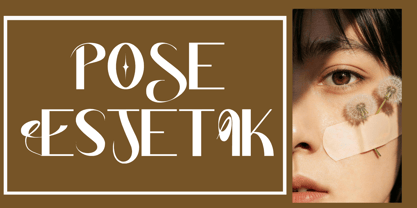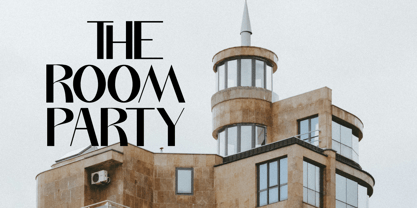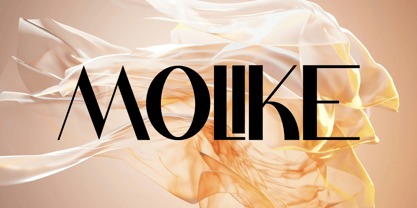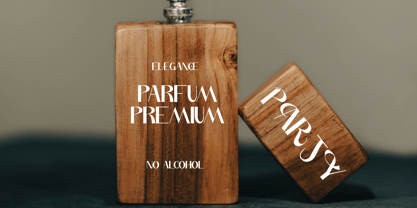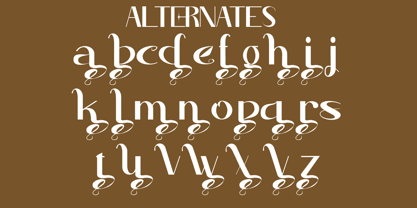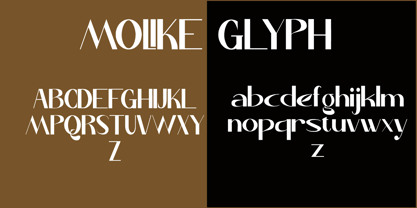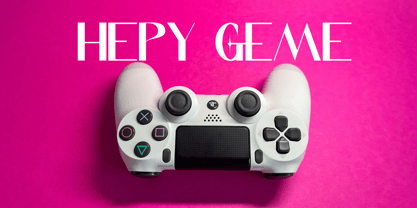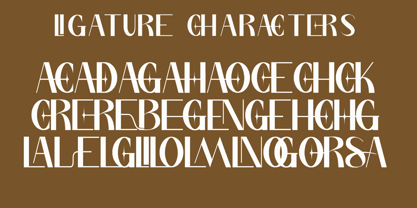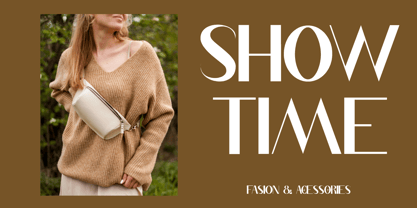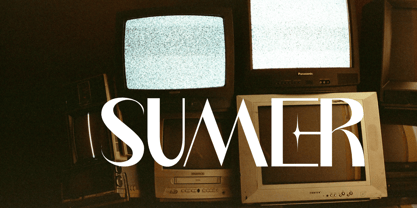
LsMolike
by Letternesia studio
The LsMolike Font Family was designed by Ta Siyo and published by Letternesia studio. LsMolike contains 2 styles and family package options. More about this family
Molik is a stylish display font designed to make a bold and memorable impression. Featuring unique letterforms, strong character, and modern aesthetics, Molik is perfect for branding, logos, headlines, packaging, posters, social media graphics, and editorial designs. Its distinctive appearance helps your projects stand out while maintaining excellent readability and visual appeal.
Whether you're creating a contemporary brand identity or eye-catching promotional materials, Molik delivers a confident and professional look that elevates any design.
Designers: Ta Siyo
Foundry: Letternesia studio